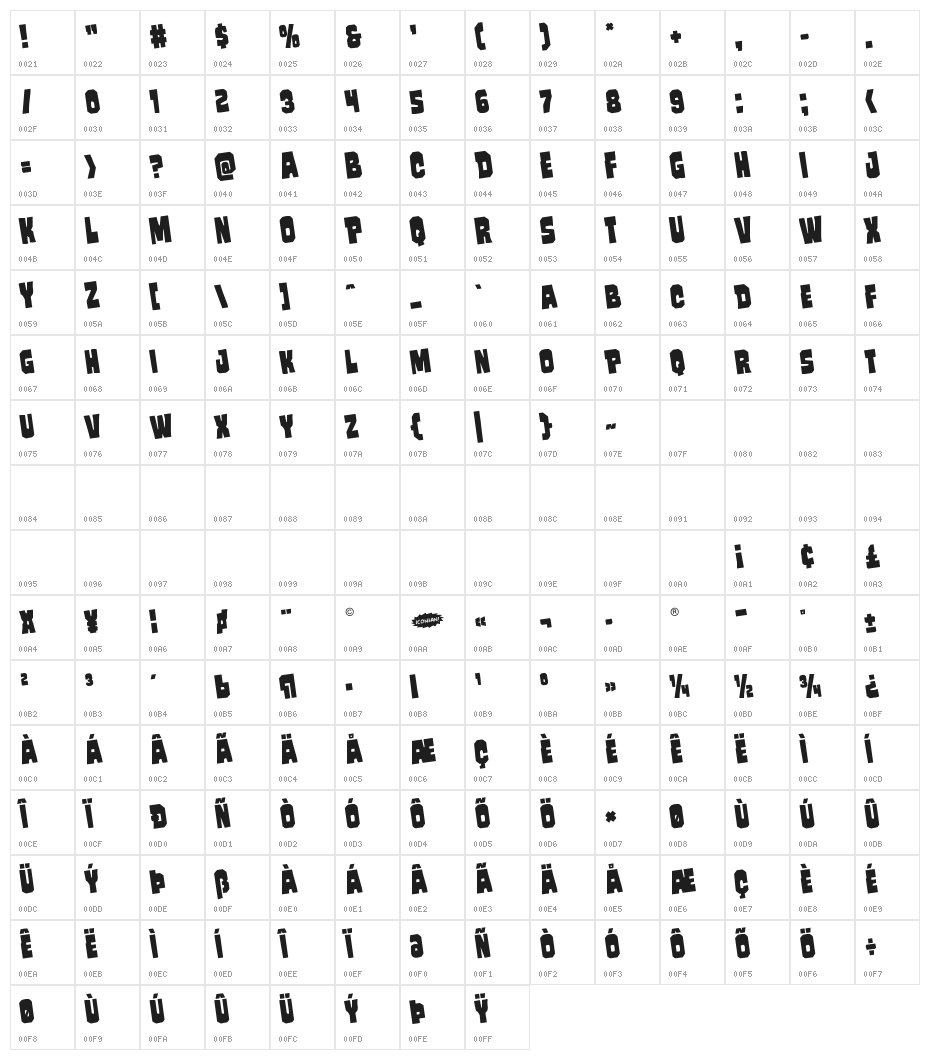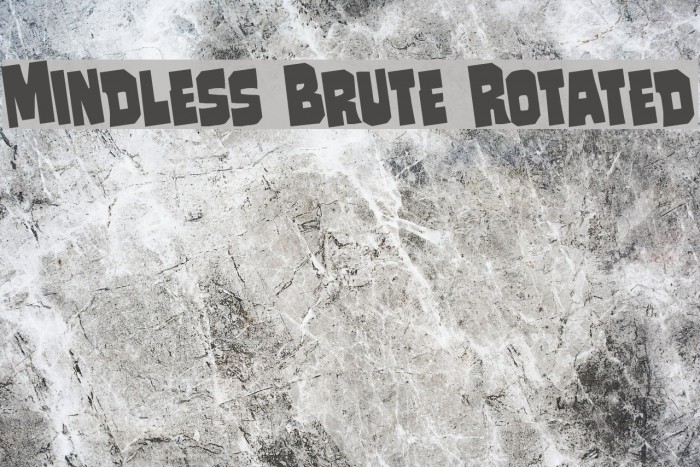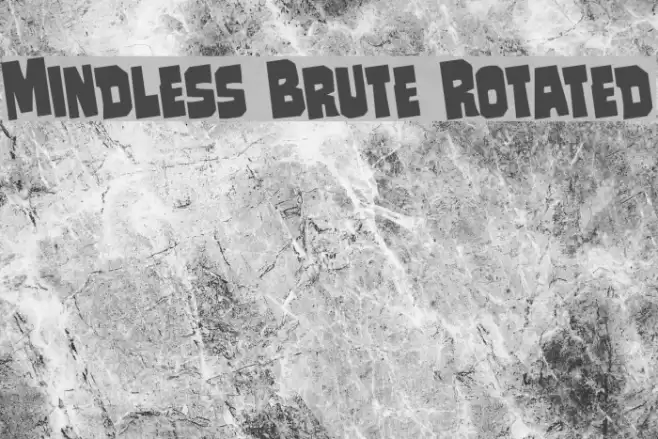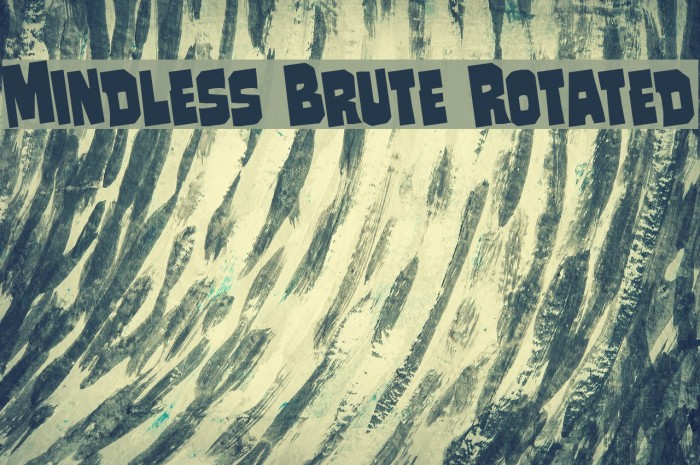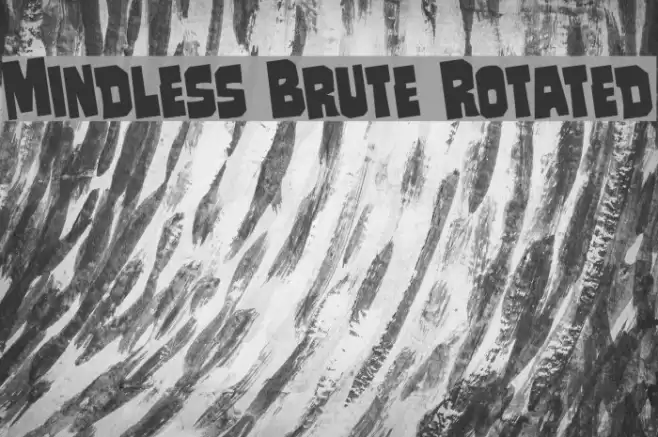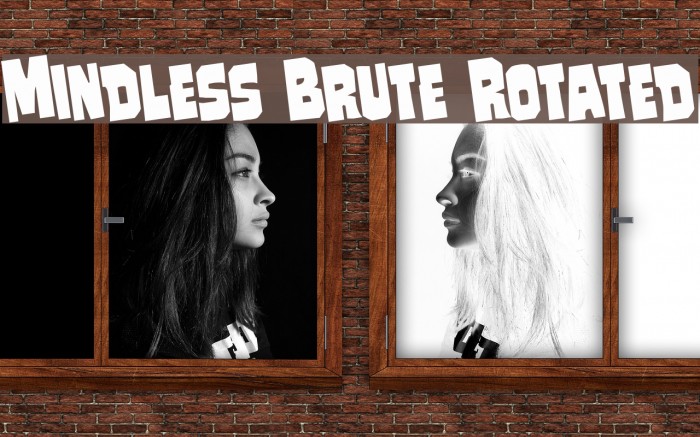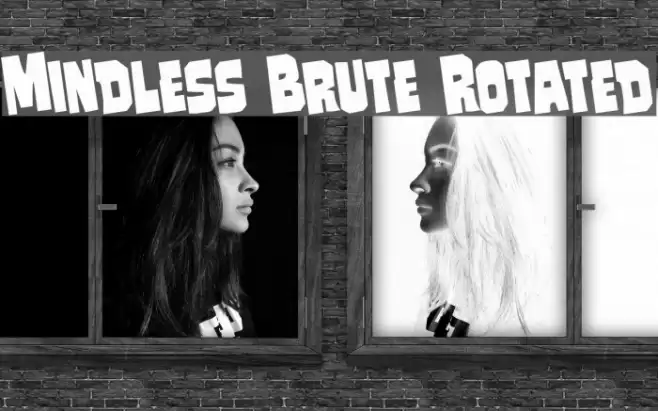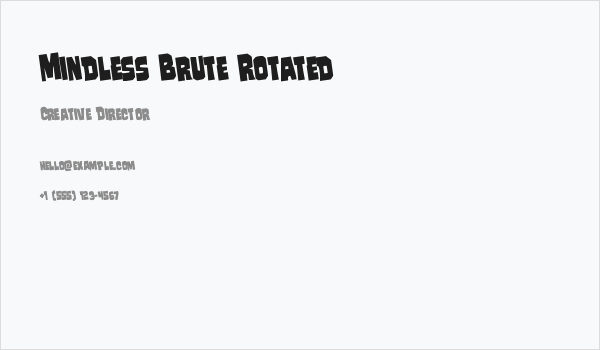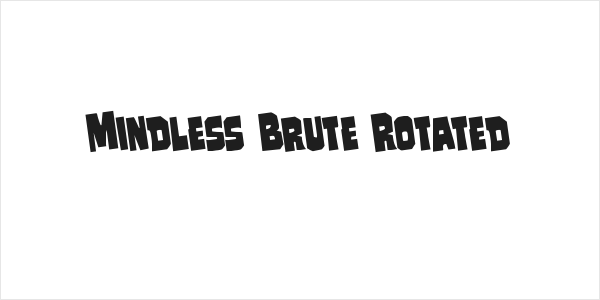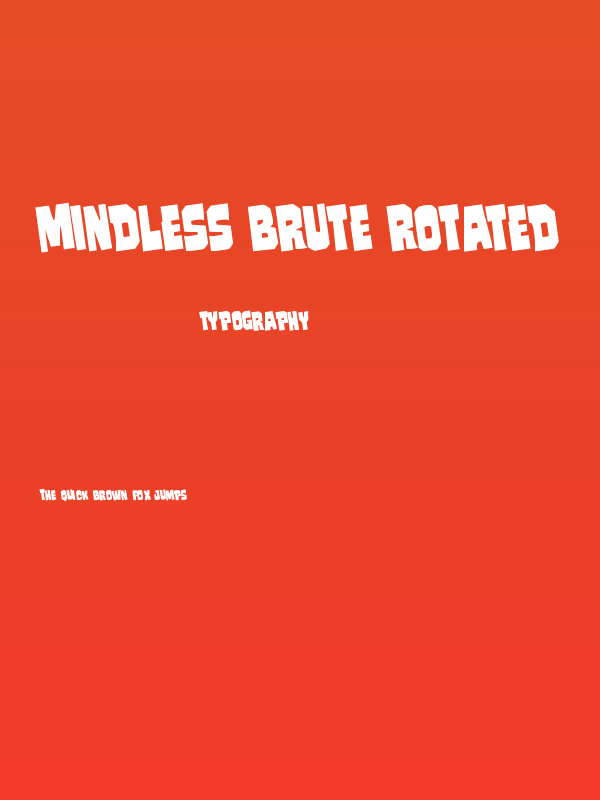
Mindless Brute Rotated Font
This font exhibits a bold and aggressive style, characterized by its heavy, angular letterforms that convey a sense of strength and impact. The characters are blocky and robust, with sharp edges and a slightly irregular shape that adds to its dynamic appearance. The uppercase letters dominate the design, while the lowercase letters maintain the same boldness, ensuring consistency across all text. Numbers and special characters follow the same design principles, making them equally striking. This font is perfect for projects that require a strong visual presence.
| Proposed Projects | Ideal for posters, headlines, logos, and any design needing a bold statement. |